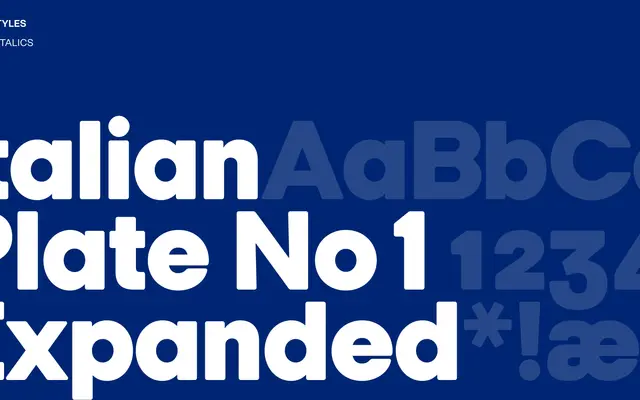
Italian Plate No1 Expanded
Italian Plate No1 Expanded specimen from Playtype
An expanded grotesque from Playtype drawing on the Italian plate lettering tradition, built for display use at generous widths.
Italian Plate No1 Expanded sits in the tradition of wide, plate-engraved lettering from Italy, translated into a contemporary sans-serif form suited to headlines and display settings. The expanded width gives it a commanding horizontal presence that works well across editorial, branding and campaign contexts. Playtype's page offers limited technical detail, but the cut suggests a single-weight or focused family rather than an extensive range.
The name and expanded cut suggest a wide, display-oriented grotesque in the Italian plate lettering tradition, likely characterised by strong geometry and generous width.